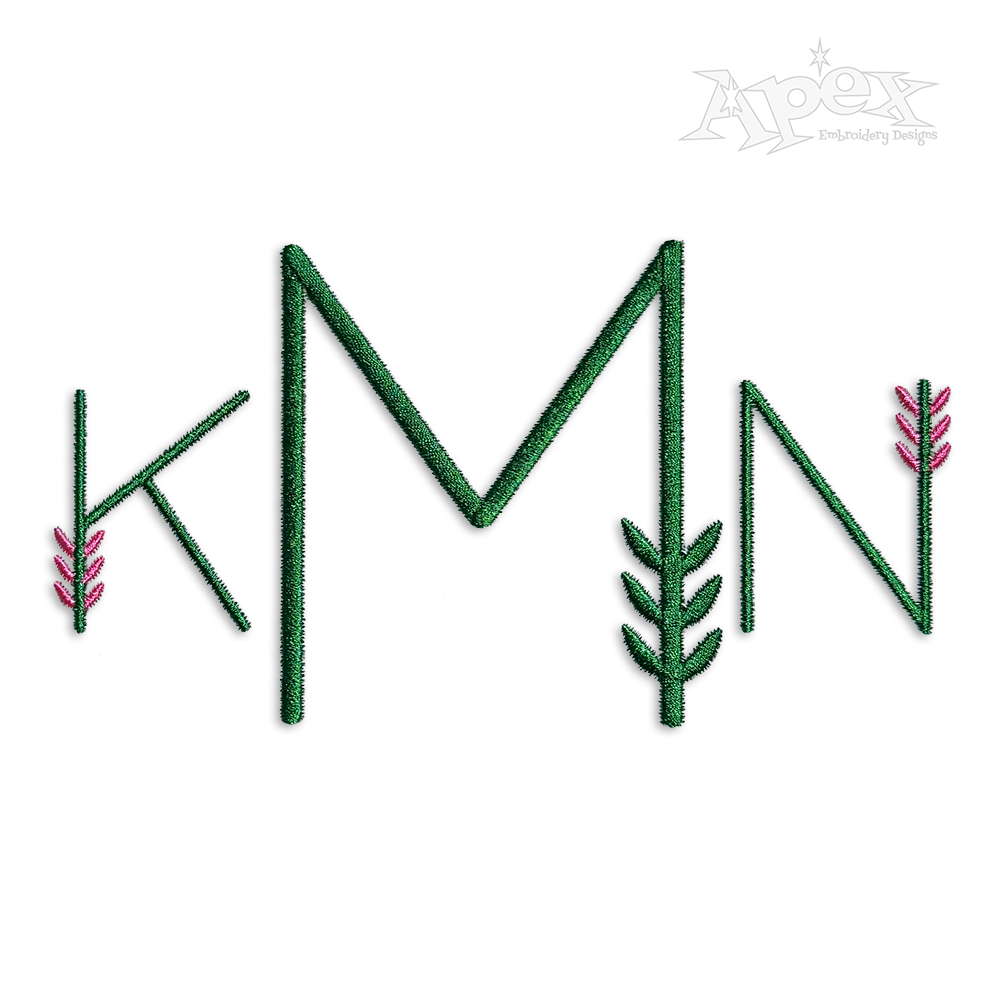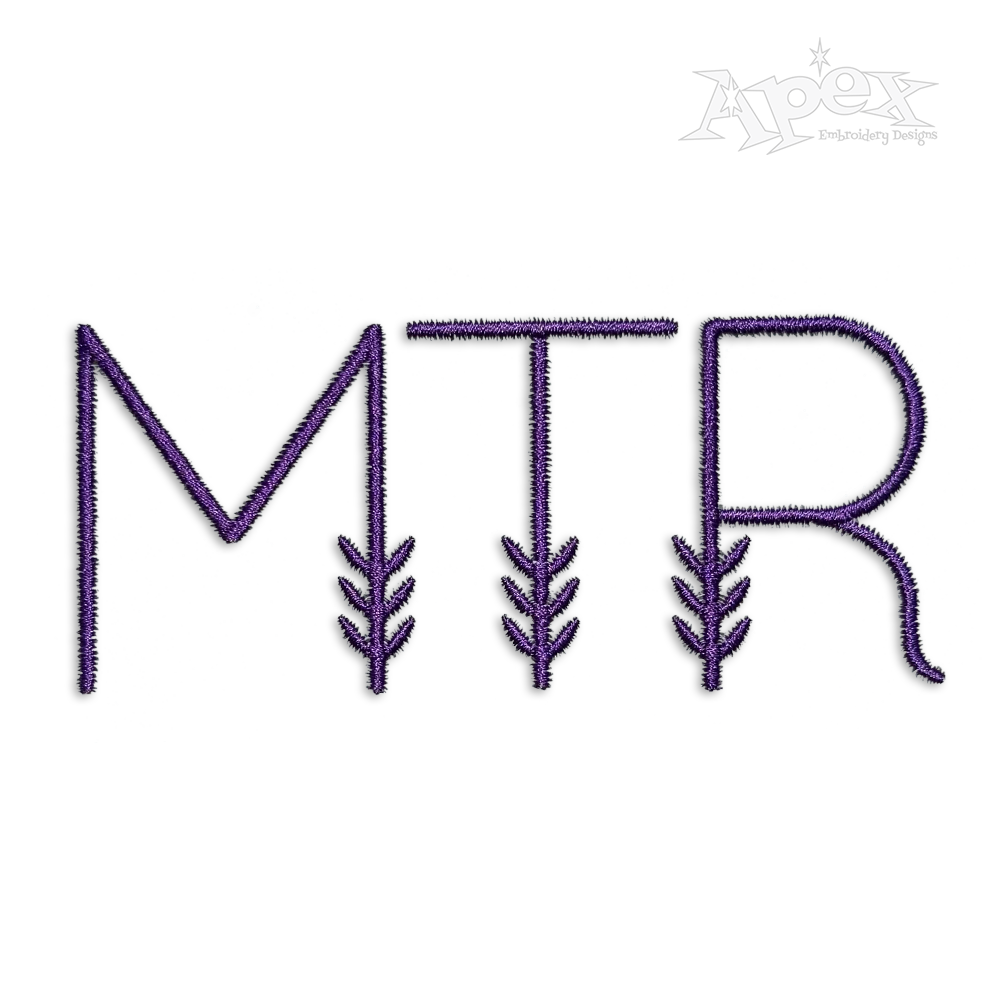
Native American Embroidery Font
Rooted in the timeless romance of the high desert and sun-drenched canyon vistas, the Native American Arrow Embroidery Font brings the raw, untamed spirit of the American West straight to your hoop. When digitizing this alphabet, our goal was to marry iconic frontier geometry with graceful typography. Every letterform incorporates the clean trajectory of an arrow?complete with chiseled points, slender shafts, and rhythmic fletchings?striking a captivating balance between rugged Southwestern tradition and refined monogramming artistry.
- Comprehensive Alphabet: A complete uppercase suite featuring meticulously integrated arrow stems, angled accents, and matching geometric punctuation.
- Multiple Digitized Scales: Prepared in versatile, proportionate sizing suitable for subtle pocket accents up to commanding statement pieces.
Project Ideas for Native American Embroidery Font
This striking Western motif alphabet lends an earthy, handcrafted character to a vast array of textile canvases:
- Bespoke Denim Jackets & Vests: Position a bold single-letter initial across the center back yoke or above a chest pocket for custom Southwestern streetwear.
- Rustic Table Linens & Placemats: Embroider fringed flax linen napkins and runner hems for desert-inspired dinner parties and bohemian gatherings.
- Canvas Duffle Bags & Weekenders: Create personalized gifting essentials for the outdoors enthusiast by stitching durable monograms onto heavyweight canvas.
- Heirloom Ranch Throws: Monogram cozy wool blankets, camp cushions, or cabin fleece throws with robust, tactile lettering.
- Curated Nursery & Childrenswear: Craft woodland- and arrow-themed baby rompers, nursery pennants, and toddler backpacks with an artisan flair.
Thanks to the directional energy of the integrated arrows, this font creates dynamic lines that enhance garment architecture and home furnishings:
- Center Back Yoke: Naturally emphasizes the horizontal line of jackets, denim overshirts, and utility shackets.
- Diagonal Napkin Corners: Orient the arrow-bearing letter at a 45-degree angle in the corner of folded linens to frame the place setting beautifully.
- Left Chest & Pocket Flaps: Keep sizing compact to produce an understated, bespoke insignia on western shirts and chambray button-downs.
- Cuffs & Hemlines: Align single initials or short names along jacket cuffs or apron waistbands for an unexpected artisan detail.
Native American Embroidery Font Craft & Letterform Details
Digitizing geometric motifs like arrows within traditional letter anatomy demands an exacting touch. We engineered this font with meticulous satin stitch angles that mimic the handcrafted grain of carved wood and feathered fletching. Rather than simply layering arrow clip-art across letters, each character is sculpted as a unified form: crossbars seamlessly transform into arrow shafts, while diagonal serifs terminate in sharp, perfectly cornered arrowheads.
Special attention was poured into stitch density management. At intersections where arrowheads converge with vertical uprights, we applied graduated density and corner underlay to eliminate unnecessary stitch buildup, keeping the final embroidery supple, flat, and soft against the skin. Clean traveling paths and calculated tie-offs minimize jump stitches, ensuring a smooth, rhythmically satisfying sew-out on everything from soft cotton jersey to rugged canvas.